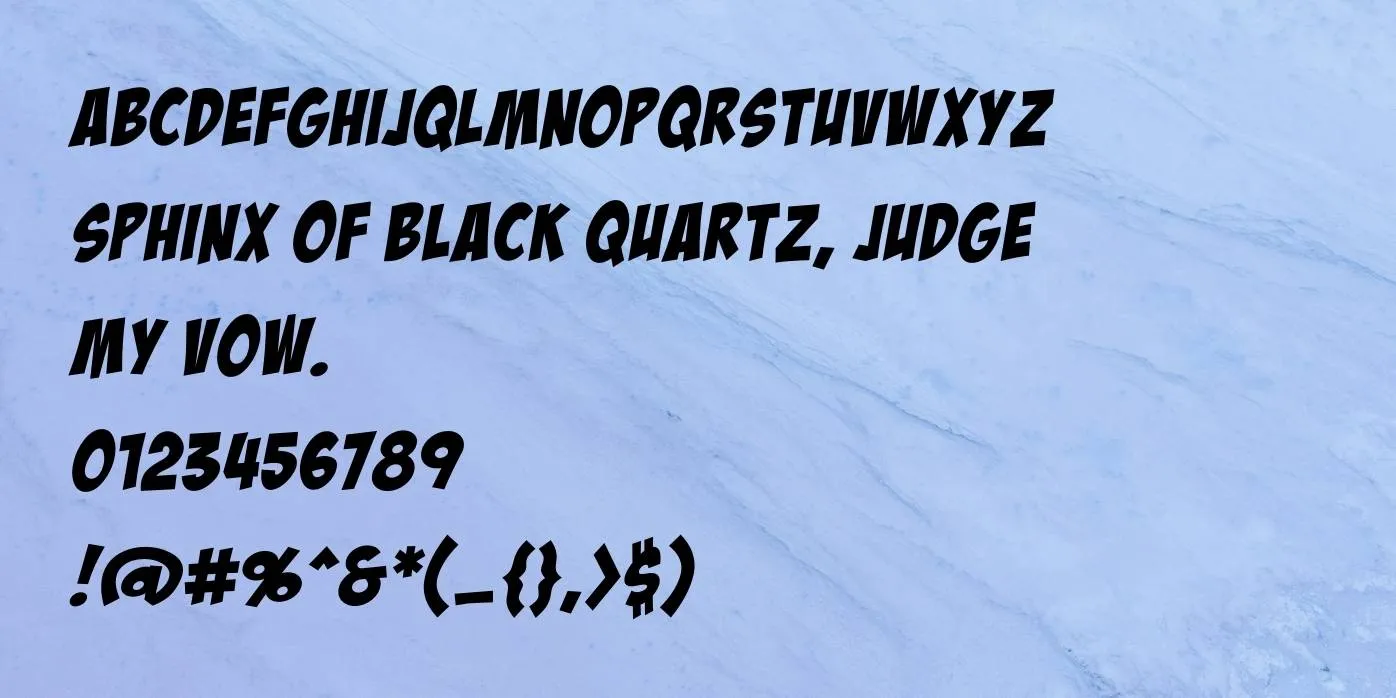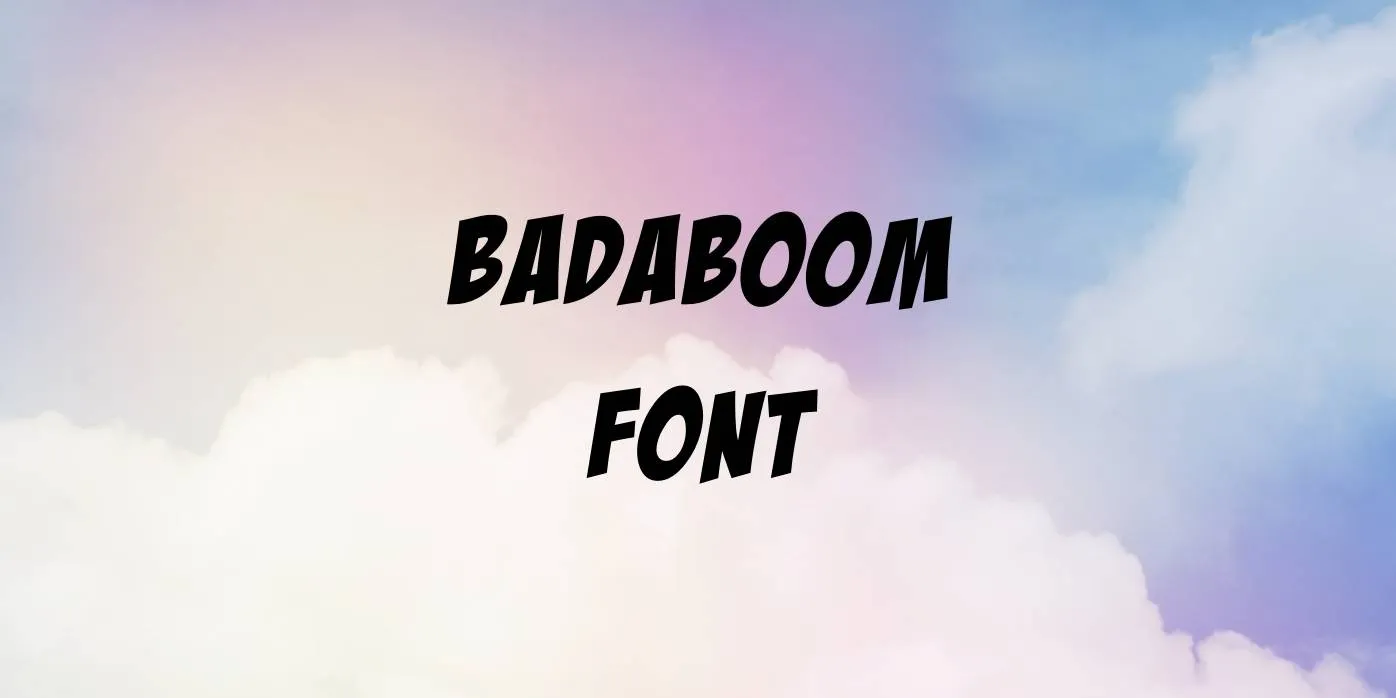
Badaboom Font
Introducing a very beautiful and stylish at a time that is specially made for designs comic book named Badaboom font. The font family belongs to a comic font family and it is the best creation of Nate Piekos and produced by Blambot. Blambot is the foundry of typography, in which Nate Piekos specializes in making the font that is used as lettering in both print and digital/online comics. This font is freeware for independent comic book creation and non-profit use only.
The font family has Truetype features including Uppercase and Lowercase, Letters, Numbers, and Numerals, and special compulsory symbols also. It can provide the best performance with the pairing of elegant Candy Font.